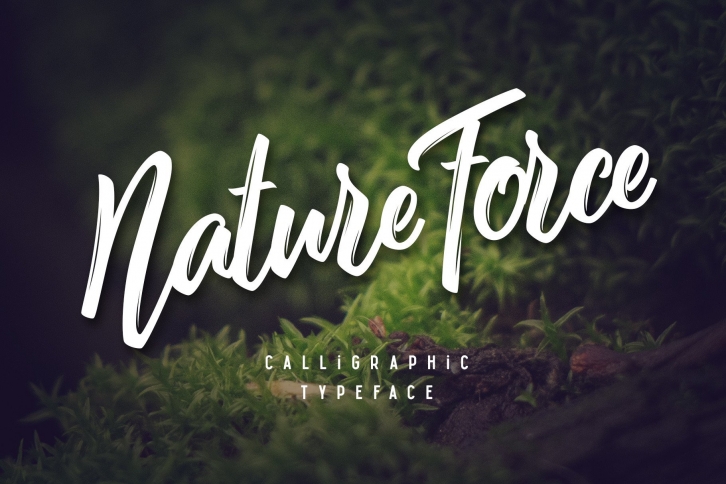
Nature Force is a trendy, flowing and brushed handwritten font. This adaptable font will look great on a variety of design ideas. It will add a fun and friendly touch to each of your projects!